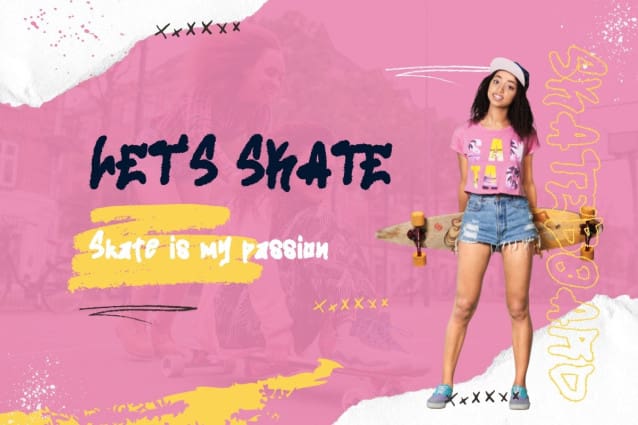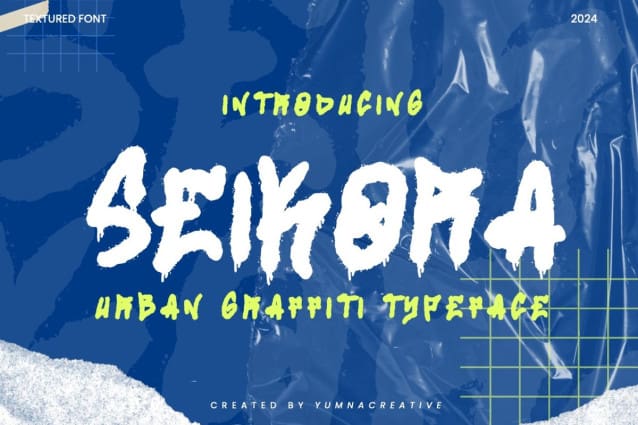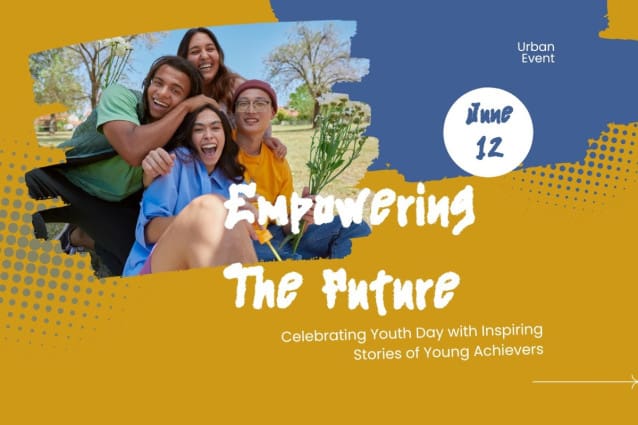
Seikora Urban Graffiti Font
Seikora Urban Graffiti Font is a creative art style that blends vibrant street art with modern urban culture. Using bold colors, spray paint, and unique designs, Seikora captures the energy and spirit of city life. It’s a visual expression that brings the streets to life with its artistic flair and rebellious edge.